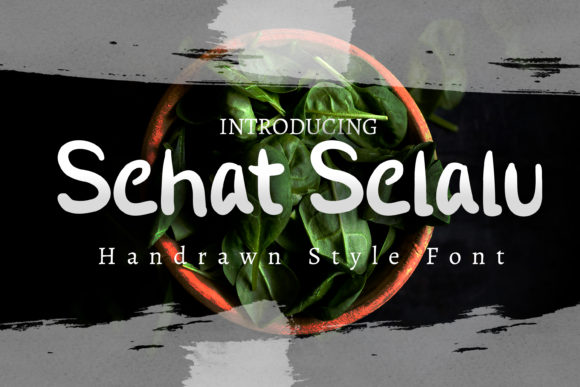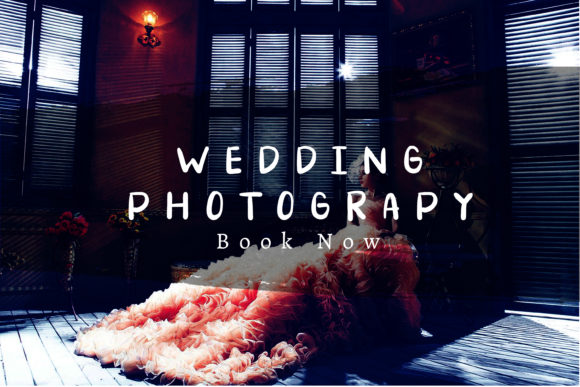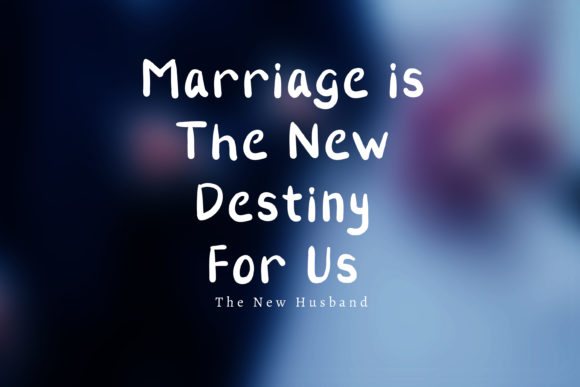
About Sehat Selalu Font
Sehat Selalu is a bouncy and quirky display font. It will add a fresh and contemporary touch to your designs. Add this unique display font to each of your creative ideas and notice how it makes them stand out!